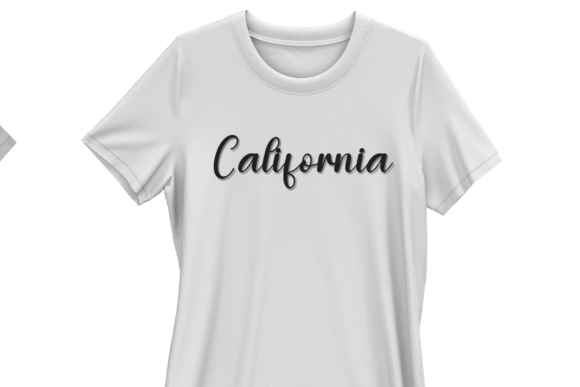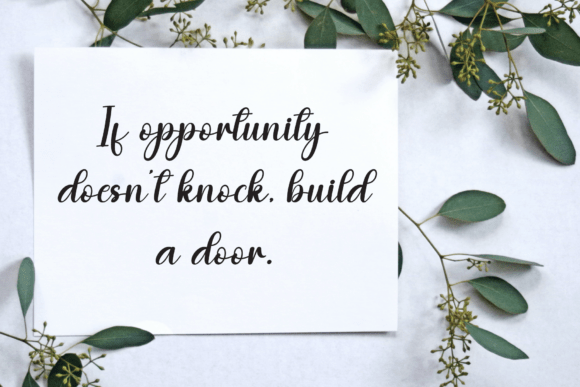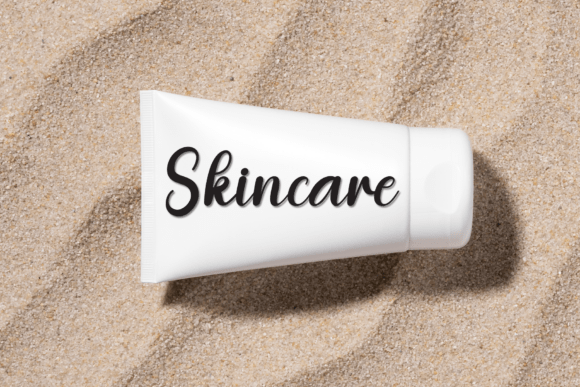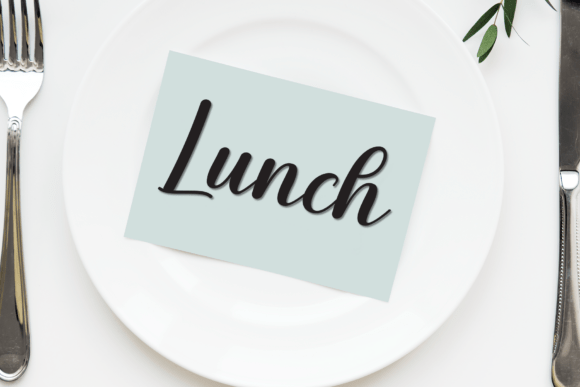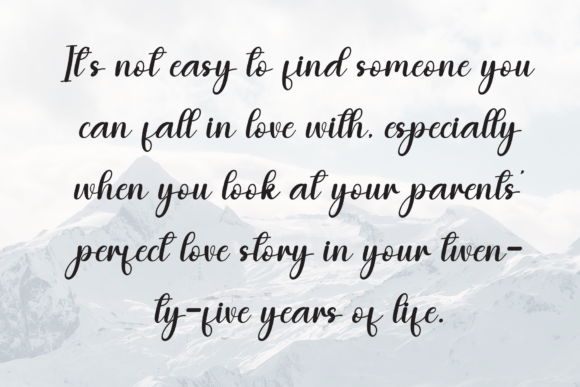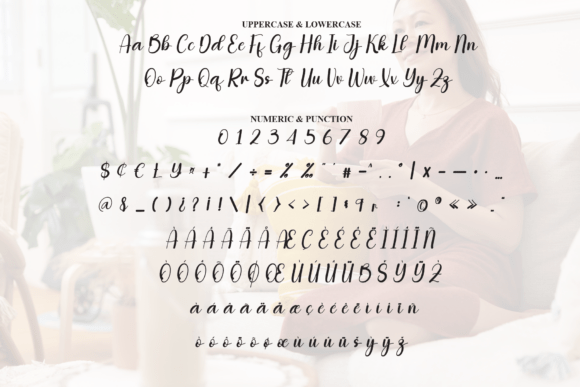
Introduction to Lifestyle Font
You know that moment when a design concept comes together, and everything just clicks? That’s what happens when you pair the perfect font with your creative vision. For designers, finding the right font can make all the difference in bringing a project to life. And that’s where the Lifestyle Font comes in – a stylish script font that exudes artistic flair and contemporary elegance.
With its fluid brush strokes, dynamic curves, and expressive letterforms, the Lifestyle Font captures the essence of hand-painted calligraphy with a modern twist. Whether you’re working on a logo, invitation, or social media graphic, this font adds a creative and sophisticated touch that’s sure to elevate your design. And the best part? It’s a high-quality design resource that’s free to download, making it a valuable addition to any designer’s toolkit.
From transparent backgrounds to bold typography, the Lifestyle Font offers endless possibilities for creative expression. So why settle for a generic font when you can add a dash of personality to your design with this stunning script font?
Key Features of Lifestyle Font
- Unique, modern design perfect for lifestyle and wellness branding
Honest Review: Lifestyle Font
- High-quality typography: The Lifestyle Font boasts clean and modern lines, making it perfect for a variety of design applications.
- Limited font weights: While the font itself is beautiful, the limited number of font weights might be a drawback for designers who like to experiment with different weights and styles.
- No italics or bold options: Unfortunately, the Lifestyle Font doesn’t offer italics or bold options, which can be a limitation for certain design applications.
Overall, I’m impressed with the Lifestyle Font, and I think it’s a great addition to any designer’s toolkit. While it has some limitations, its high-quality typography and transparent background make it a valuable resource for any creative project.
Lifestyle Font